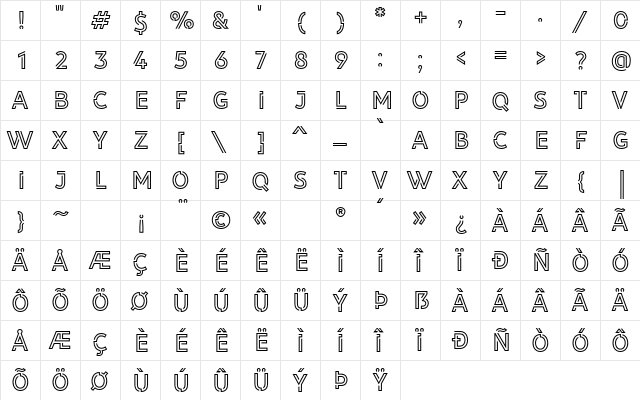
LIBRARY 3 AM Regular
| Foundry | Igor Kosinsky |
| Designer | Igor Kosinsky |
Design Context for LIBRARY 3 AM Typeface
LIBRARY 3 AM is a composed and adaptable typeface that performs quietly and consistently across a wide range of design contexts.